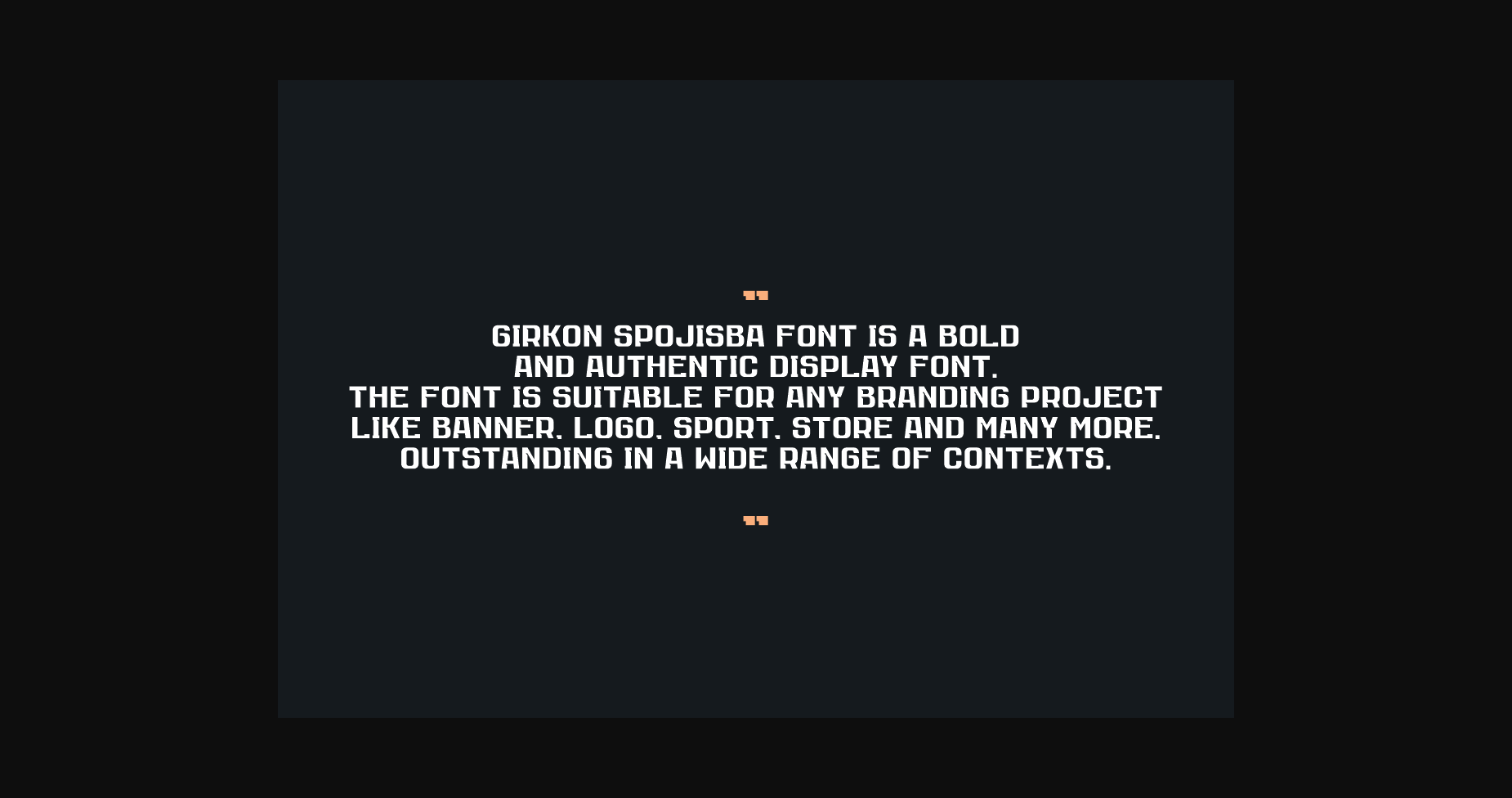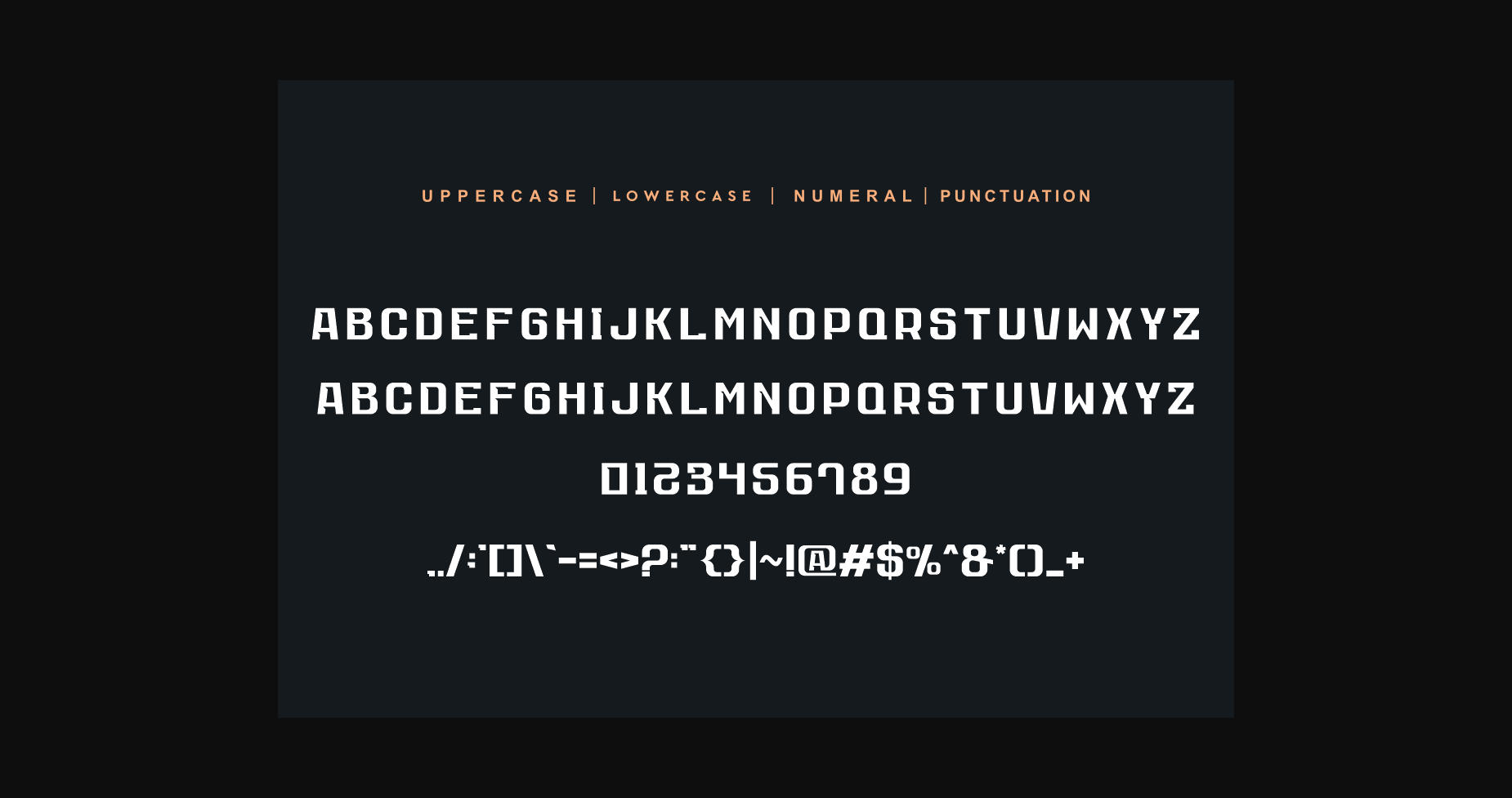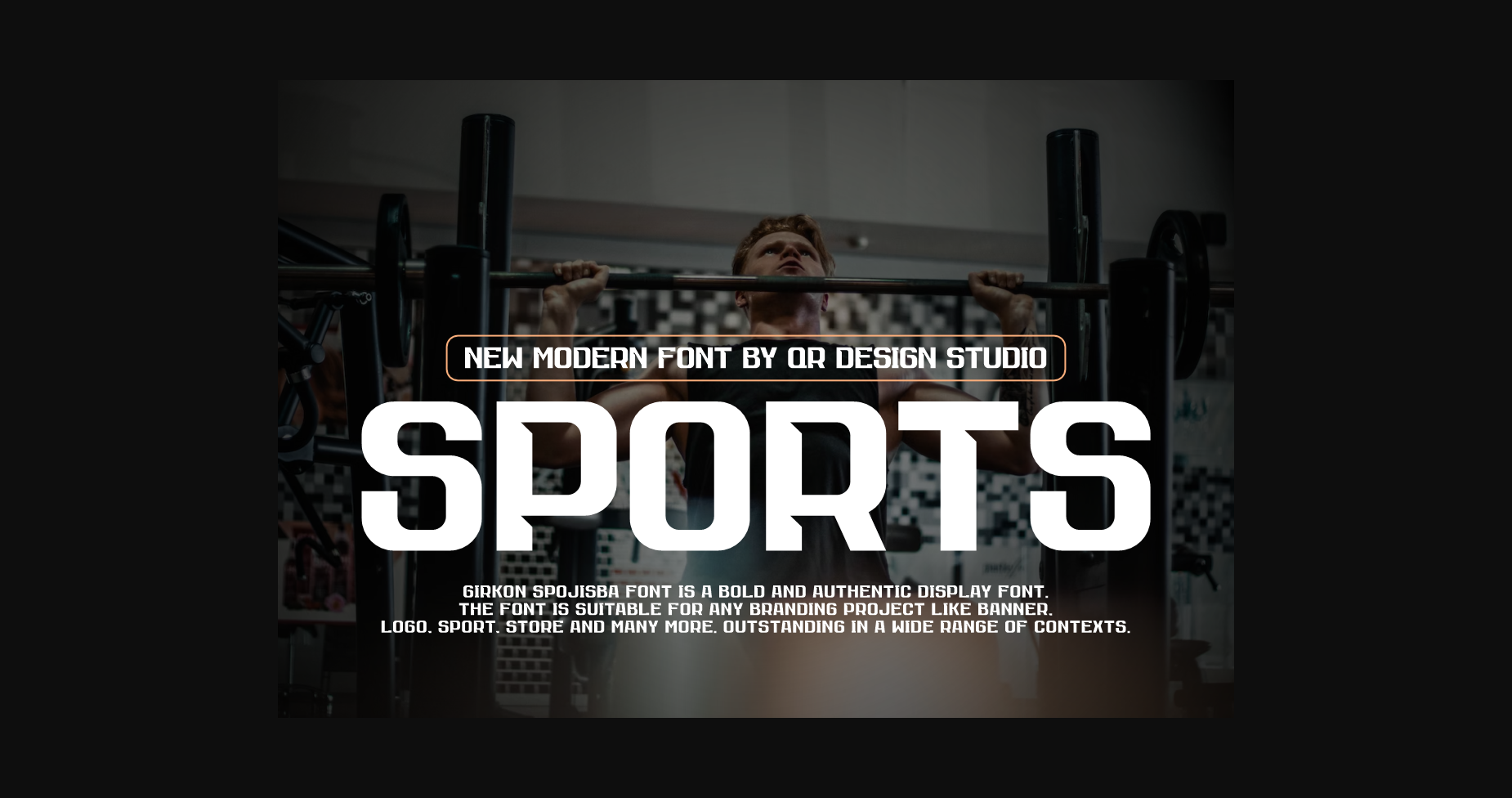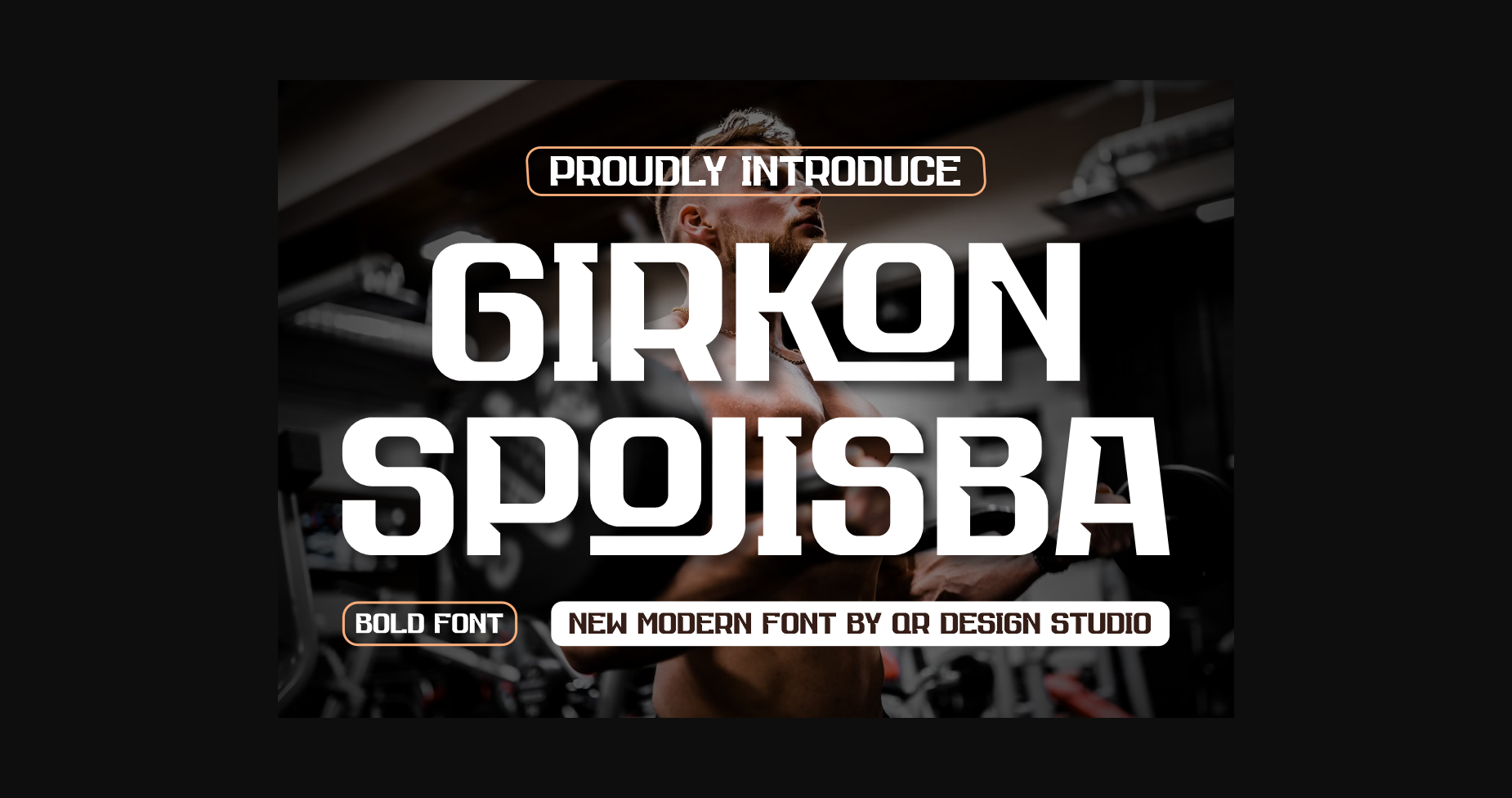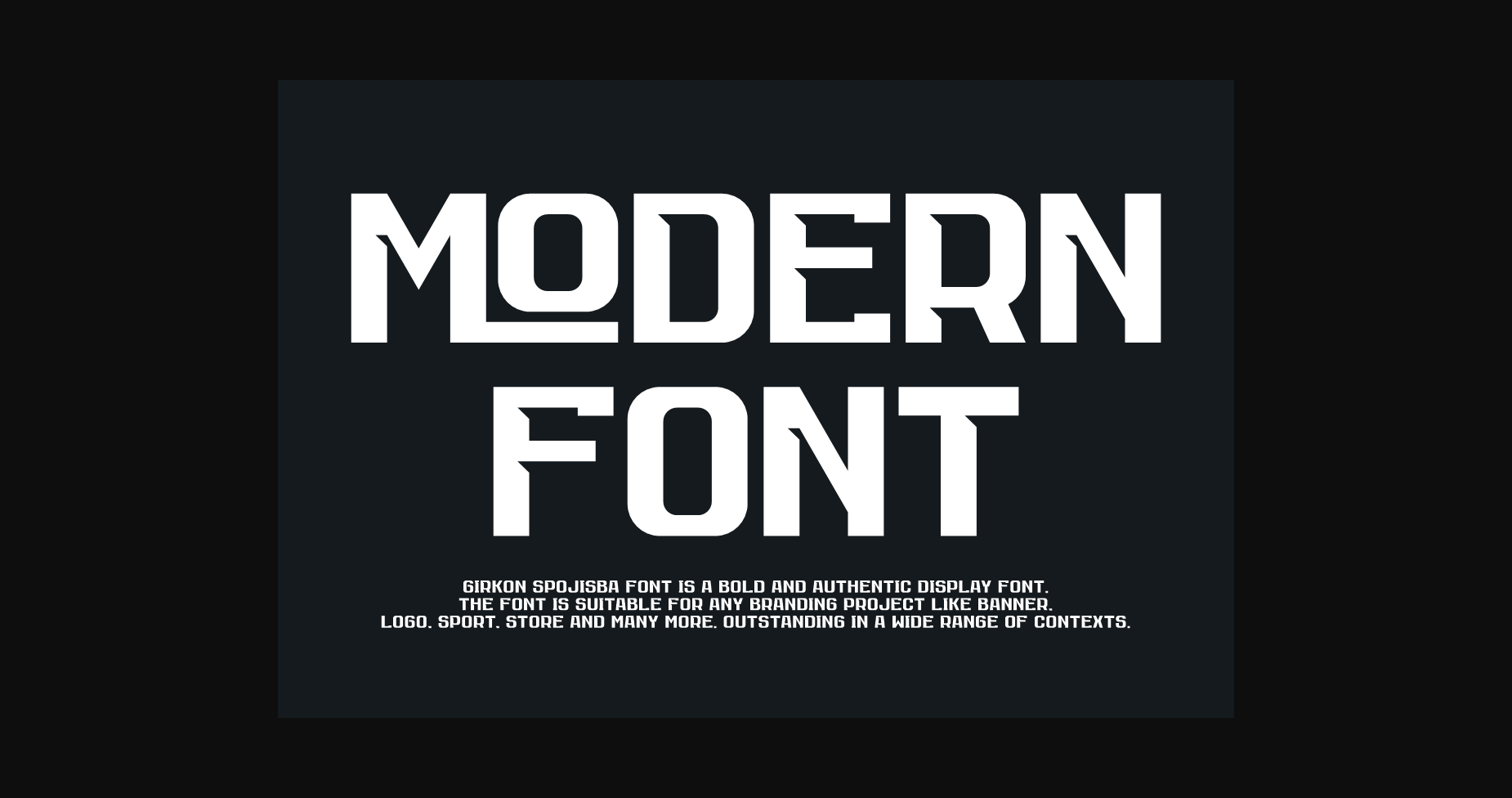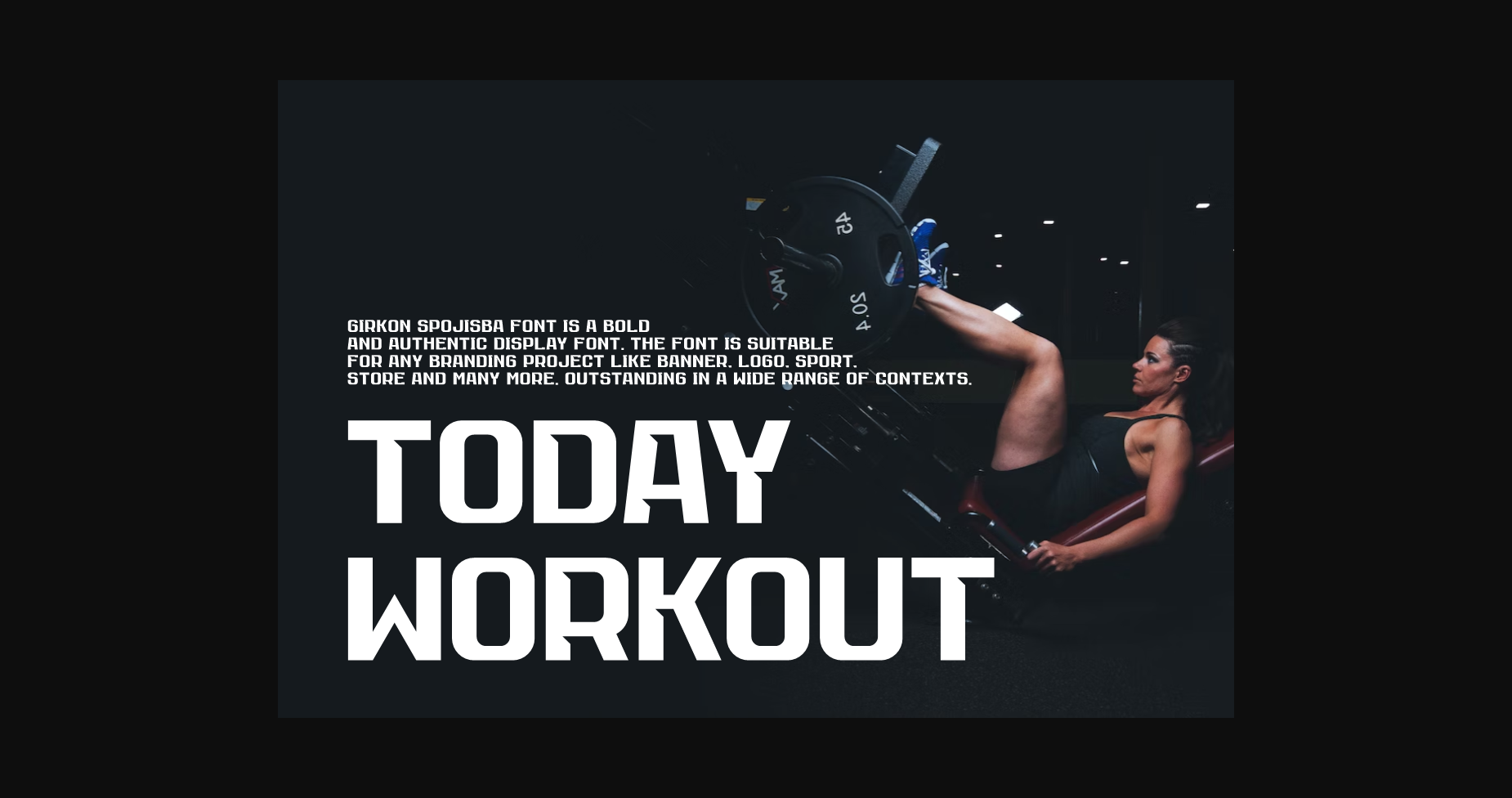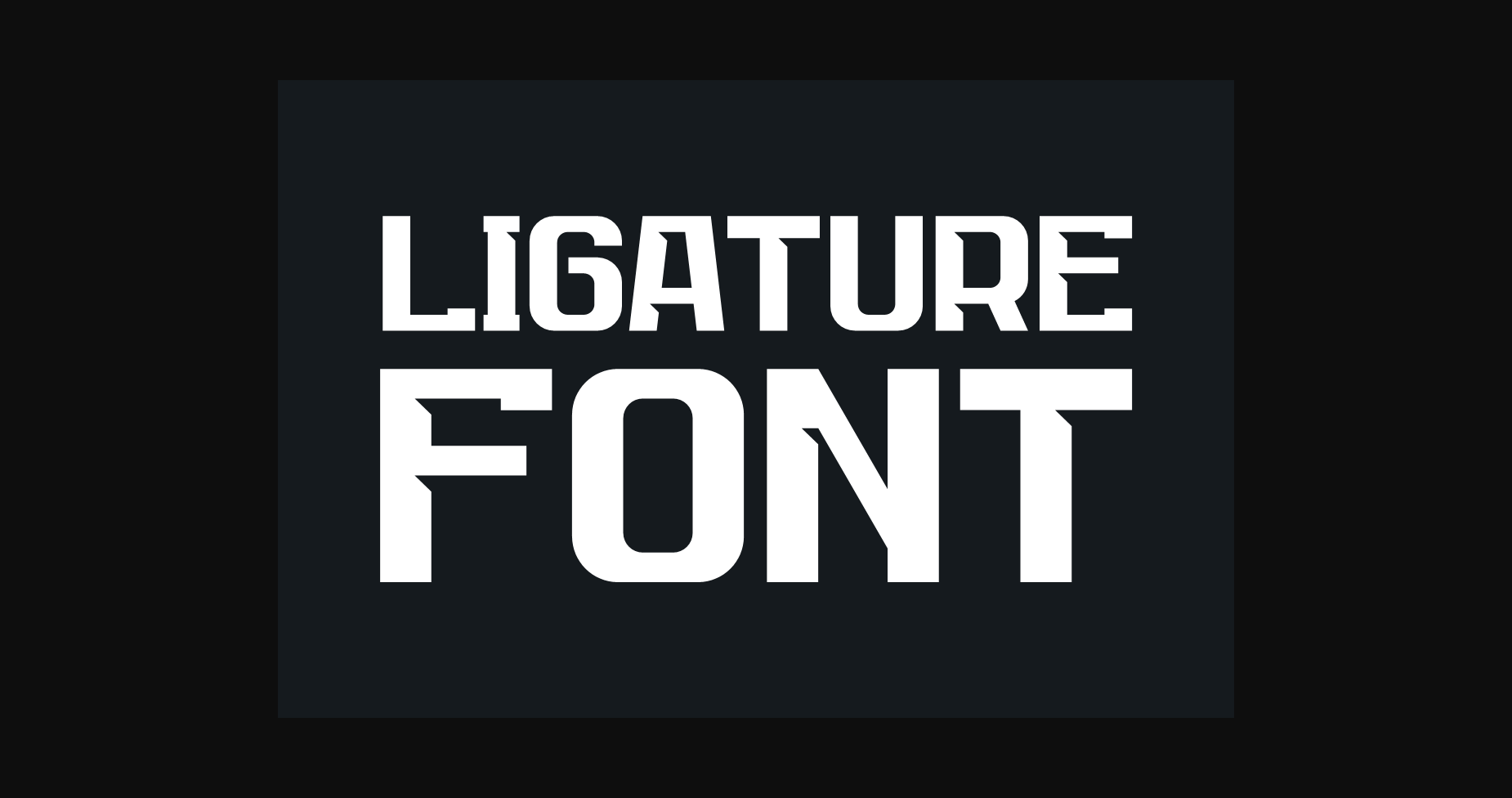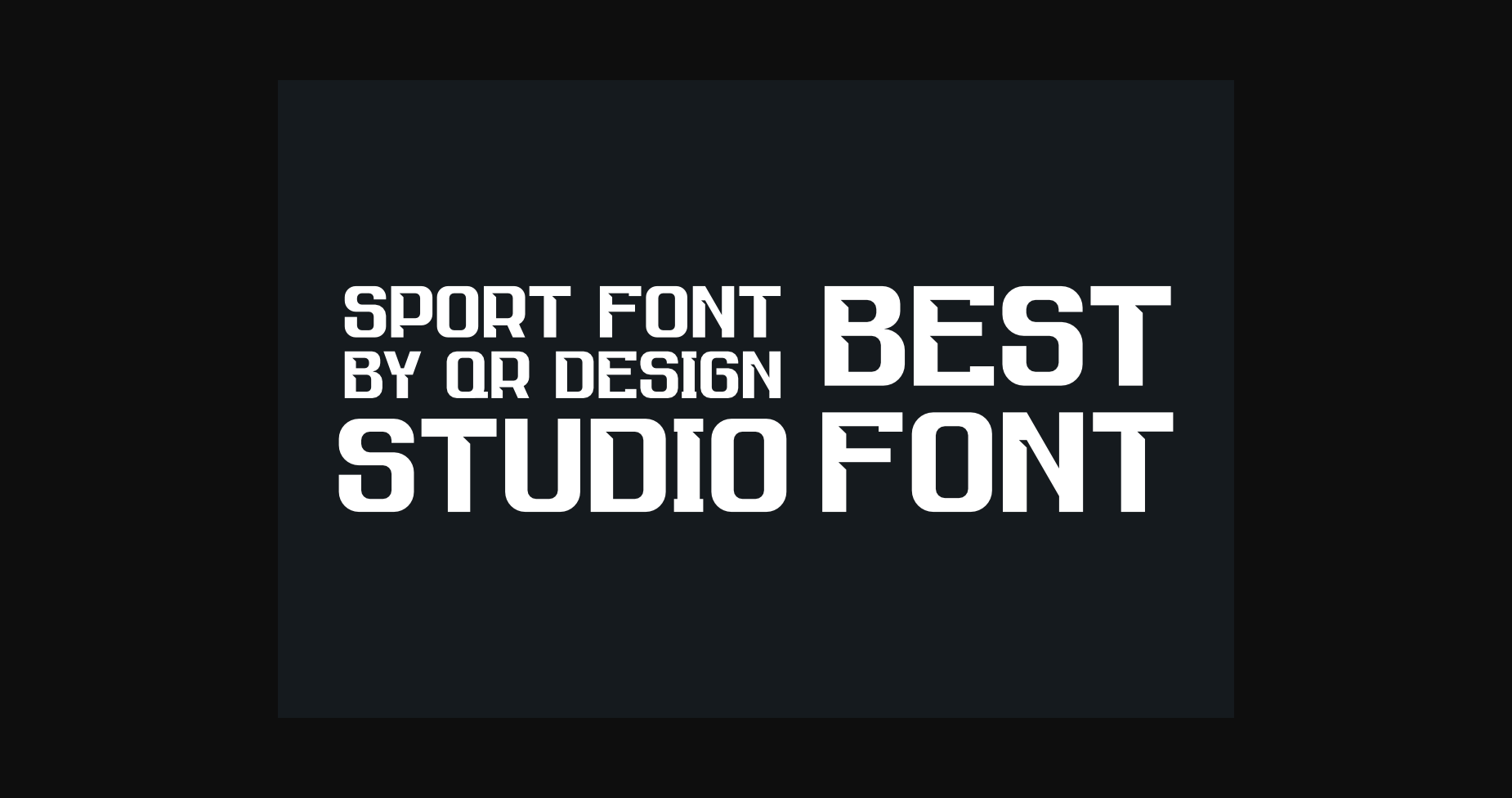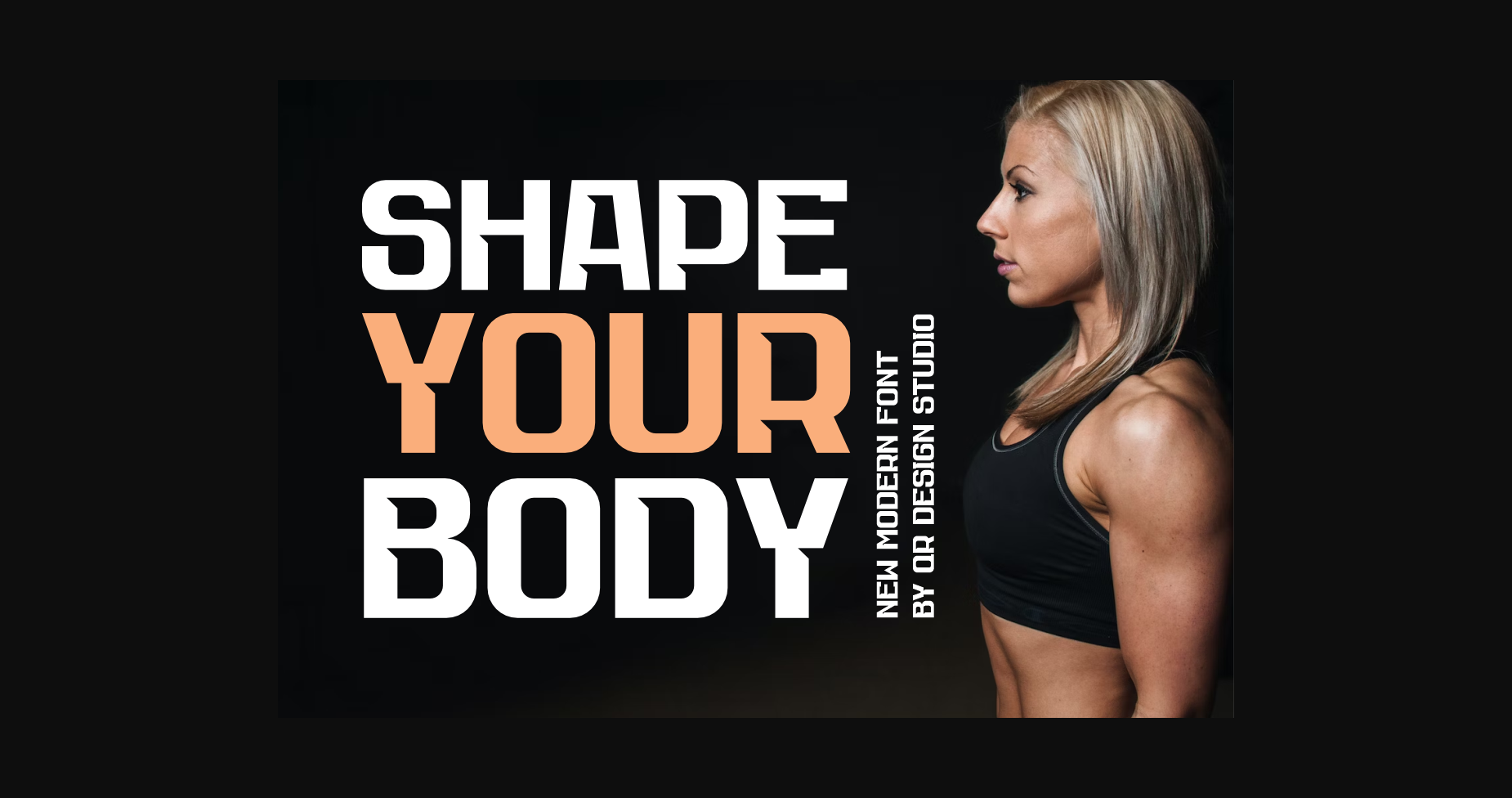
Girkon Spojisba Font
About Girkon Spojisba Font
Girkon Spojisba Font is a bold and authentic display font.
The font is suitable for any branding project like logo, sport, and many more.